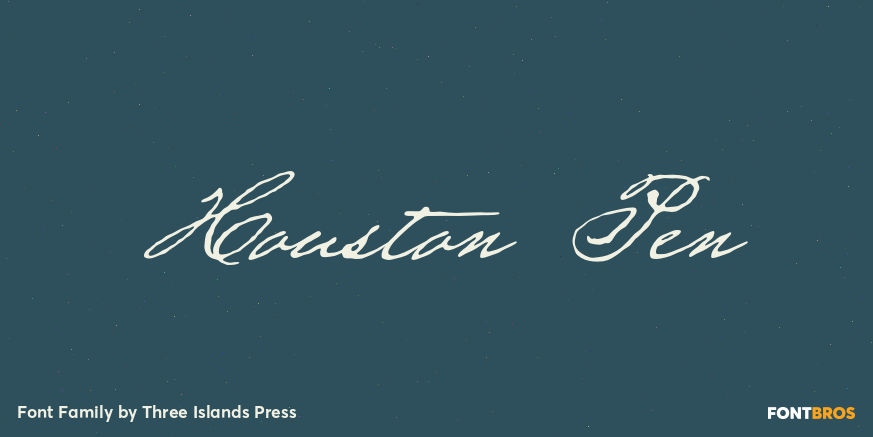
Houston Pen
About Houston Pen
Early Texas patriots had fascinating penmanship. In researching Texas Hero years ago, I had occasion to pore over copies of letters by the likes of Stephen F. Austin, William B. Travis, Thomas J. Rusk, and others. Austin\’s hand was pretty messy. Young,…